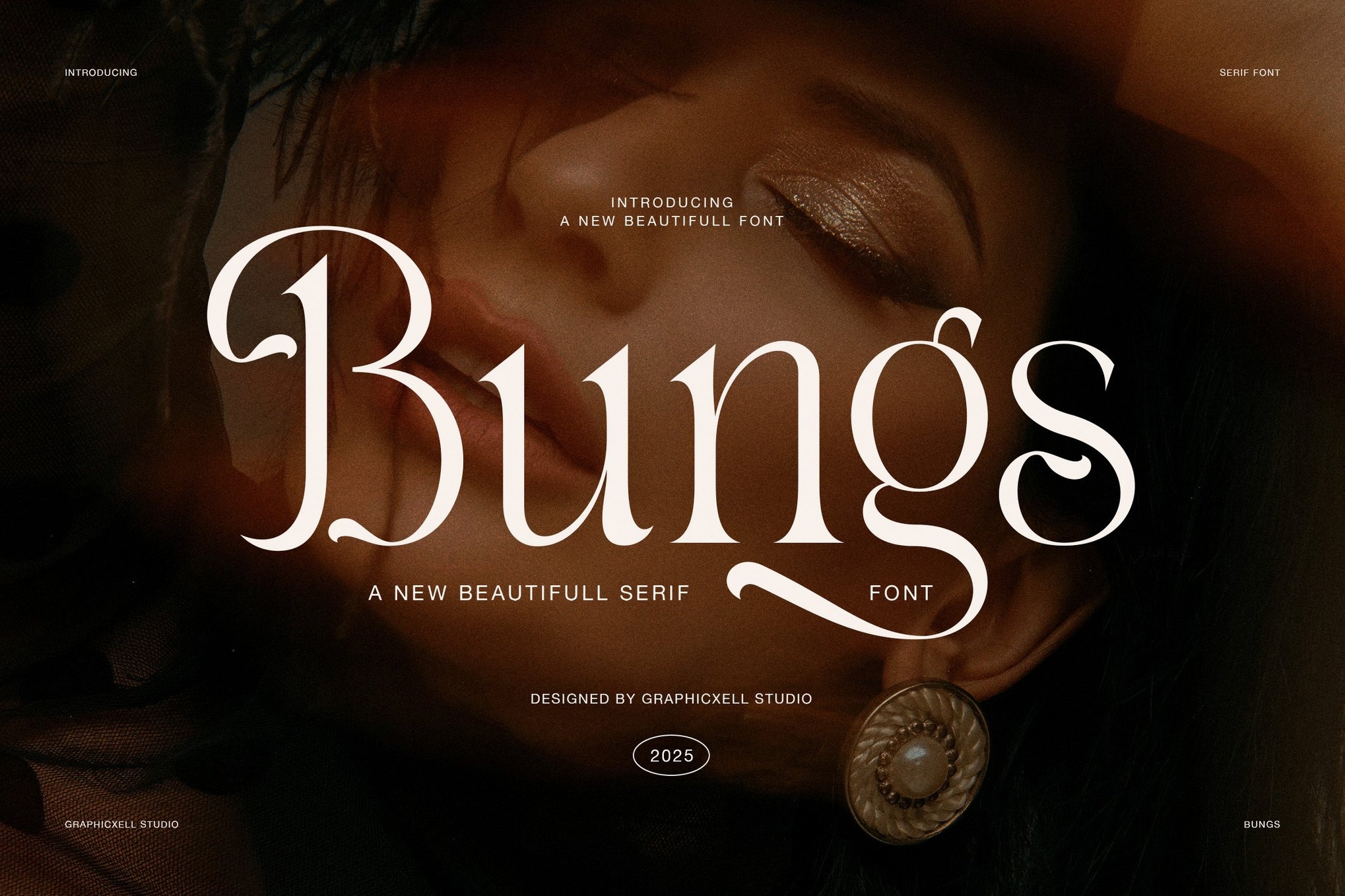
Bungs Font
Bungs Font is a versatile font designed to adapt beautifully across different design styles, offering dependable readability and balance. Bungs is an elegant modern serif font crafted to express luxury, balance, and refined character. It features smooth curves, high contrast strokes, and graceful terminals. Because each letter feels intentional, Bungs delivers visual confidence without sacrificing clarity.
This serif font blends classic heritage with contemporary elegance. As a result, designers choose Bungs for fashion editorials, interior branding, and premium lifestyle projects. Moreover, the stylish alternates add personality while keeping layouts calm and structured. Every glyph supports a polished and timeless appearance.
Bungs works beautifully for designers who value detail and atmosphere. Therefore, it fits perfectly in logos, magazine headlines, hotel identities, and boutique branding. In addition, it performs strongly in large display text, where contrast and elegance matter most.